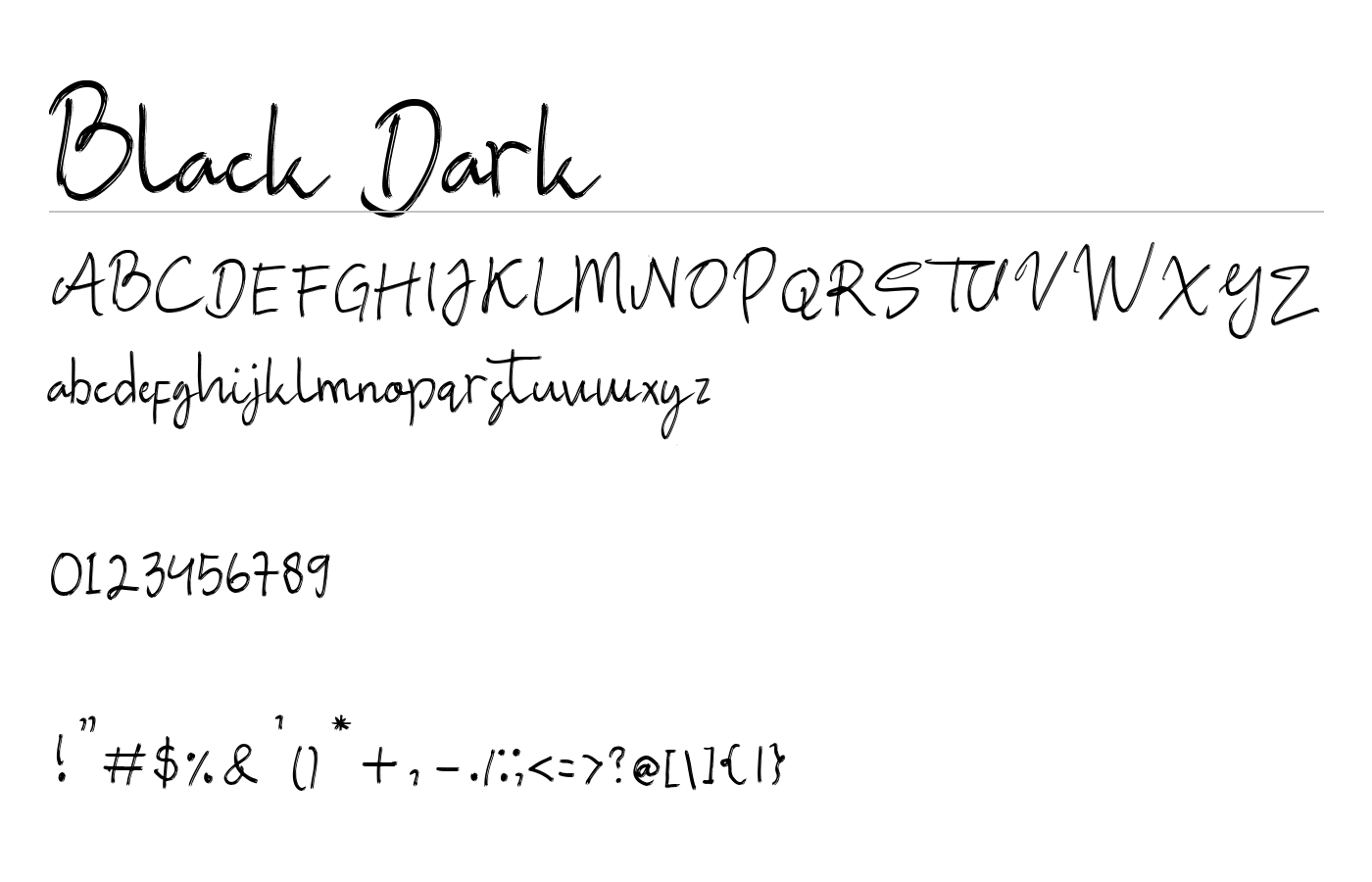
Black Dark is a casual, handwritten script font characterized by its thin, flowing strokes and playful, natural imperfections. Its light weight and tall x-height give it an airy, approachable feel, making it perfect for creative, informal designs such as invitations, personal branding, and lifestyle blogs. This font adds a personal, artistic touch while maintaining legibility, ideal for projects aiming for a friendly yet elegant vibe.
Black Dark Font
About Black Dark Font
| Font family | Black Dark Font |
| Designer | Letterday Studio |